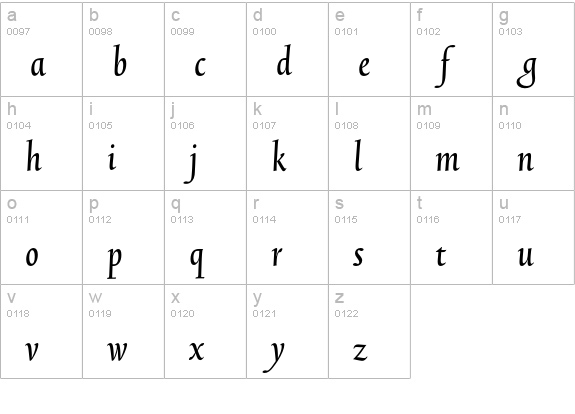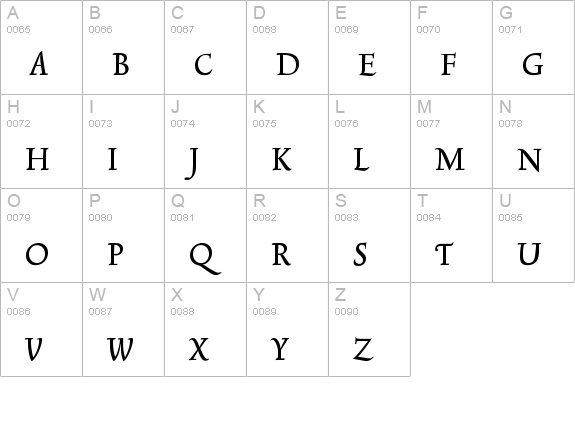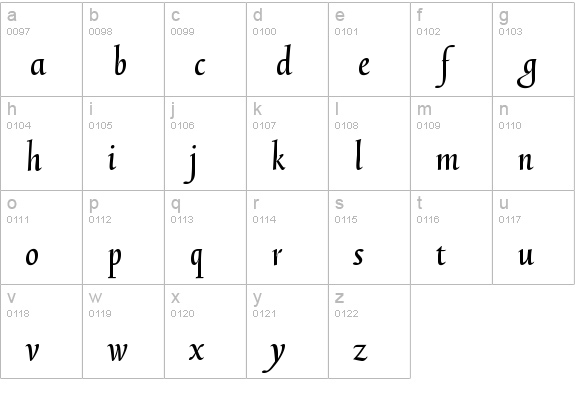
TriniteNo3-MediumItalicTab is a versatile font that exudes elegance and modernity. Its medium weight strikes the perfect balance between boldness and subtlety, making it suitable for a wide range of creative projects. The italicized style adds a touch of sophistication and dynamics to any design. The unique characteristics of TriniteNo3-MediumItalicTab make it stand out from the crowd. The slightly slanted letters possess a graceful flow that captures attention and adds a sense of movement to your text. Whether you are creating a logo, a headline, or a sleek branding project, this font will elevate your design to new heights. One of the best things about TriniteNo3-MediumItalicTab is that it is available for free download at FontsMarket.com. This means that you can easily access and use this exceptional font without any hassle. Whether you are a professional designer or a passionate enthusiast, this font is at your fingertips, ready to enhance your creative endeavors. The versatility of TriniteNo3-MediumItalicTab extends beyond its aesthetic appeal. This font is highly legible, ensuring that your message is conveyed clearly and effectively. The carefully crafted letterforms ensure that each character is distinct and easy to read, regardless of the size or context. With TriniteNo3-MediumItalicTab, you have the freedom to experiment and explore different design possibilities. The font's clean lines and contemporary style make it suitable for a variety of projects, ranging from print materials to digital platforms. Whether you are creating a magazine layout, a website design, or a social media post, this font will effortlessly adapt to your needs. In conclusion, TriniteNo3-MediumItalicTab is a refined and versatile font that is freely available to download at FontsMarket.com. Its elegant and modern aesthetic, combined with its legibility and adaptability, make it an excellent choice for any design project. Embrace the freedom to create and elevate your designs with TriniteNo3-MediumItalicTab.